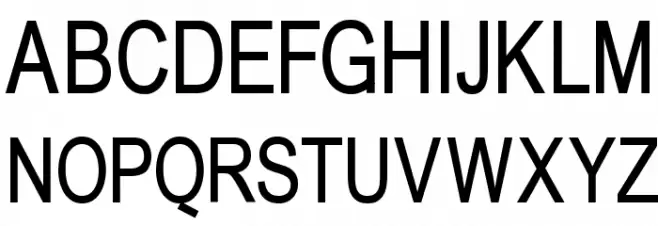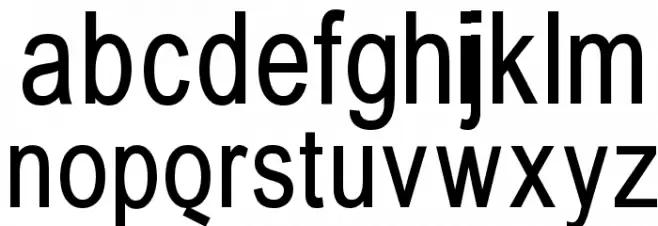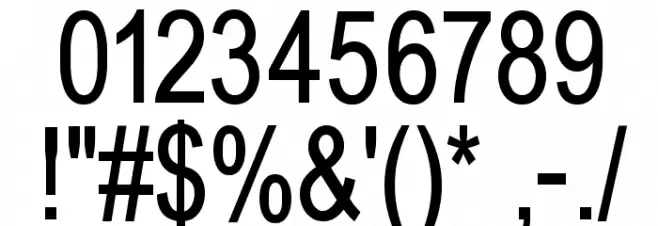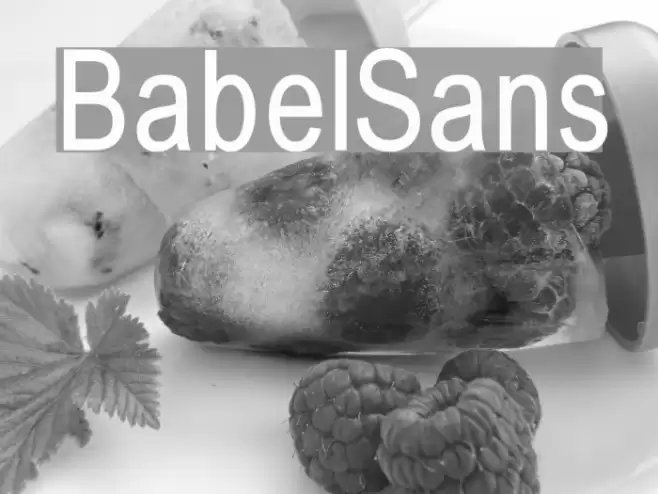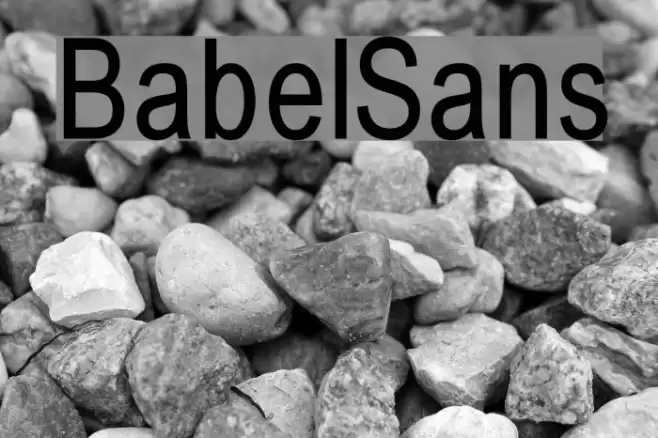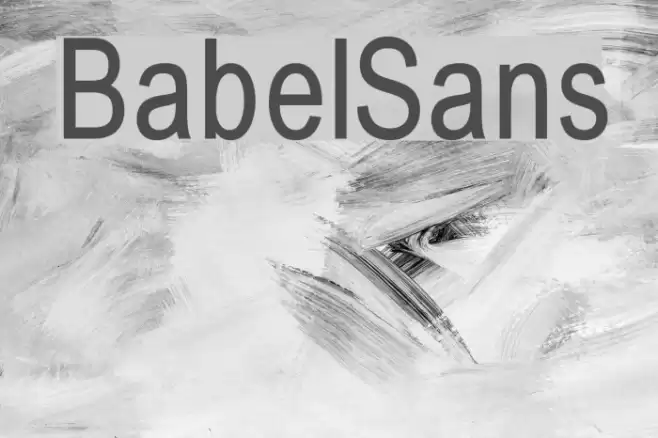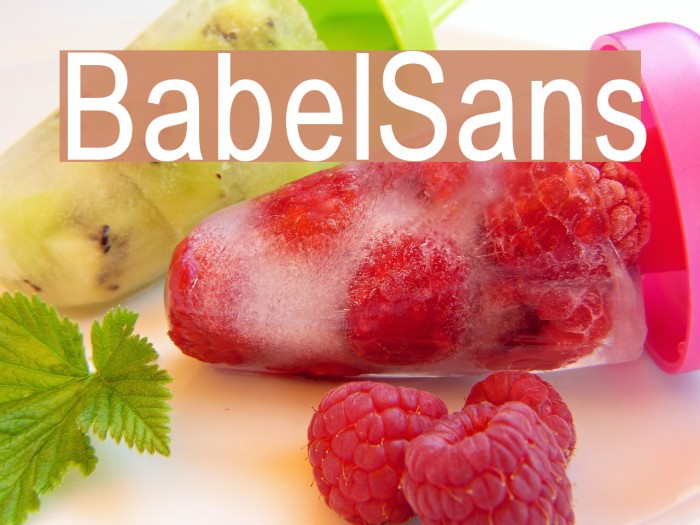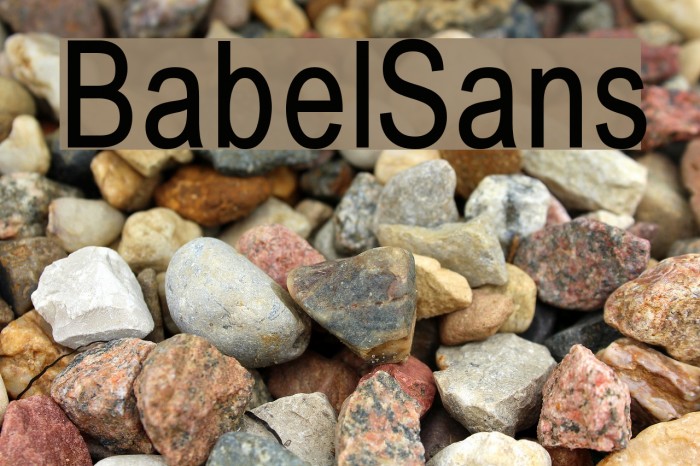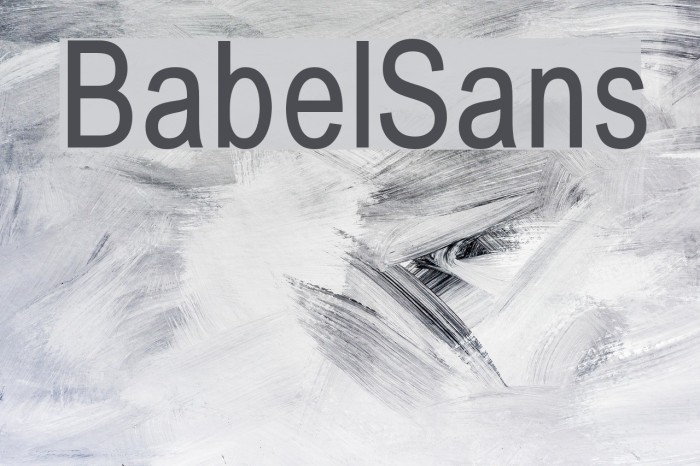
BabelSans
This font features a clean and modern sans-serif design, characterized by its simplicity and clarity. The characters are evenly spaced, providing excellent readability. The uppercase letters are bold and assertive, while the lowercase letters maintain a consistent and harmonious appearance. The numerals are straightforward and align well with the overall style, making them suitable for various applications. Special characters are clearly defined, enhancing the font's versatility. Its geometric shapes and balanced proportions make it ideal for contemporary design projects.
A modern, clean sans-serif font with excellent readability and balanced proportions.
- Proposed Projects: Ideal for branding, web design, advertising, and editorial projects where clarity and modernity are essential.